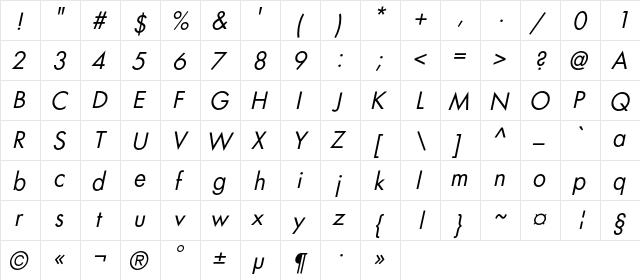
FortuneC Italic
Design Context for FortuneC Typeface
FortuneC takes a measured approach to typography — its balanced proportions and neutral character make it a reliable workhorse for both digital and print work. Its italic angle brings a sense of urgency and motion to the letterforms.
Pro Tip: Use FortuneC for emphasis, pull quotes, and subheadings where its slanted energy can add rhythm to the layout.